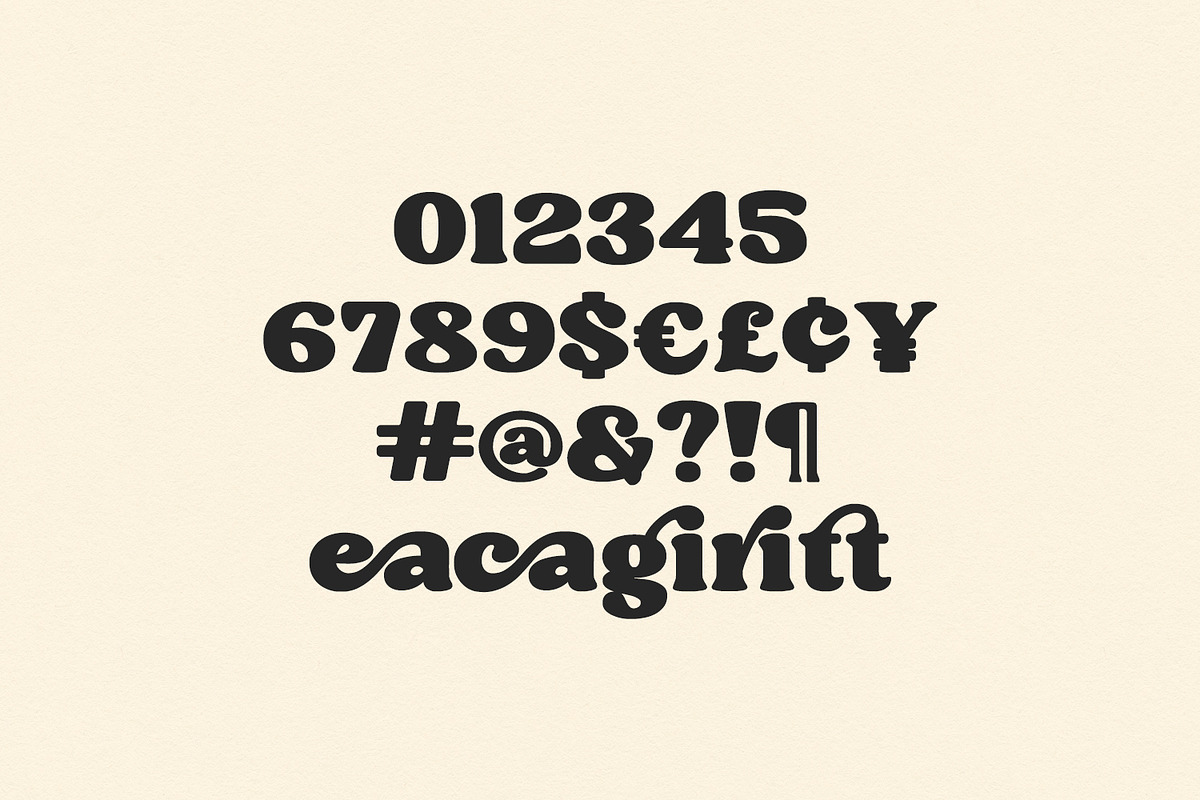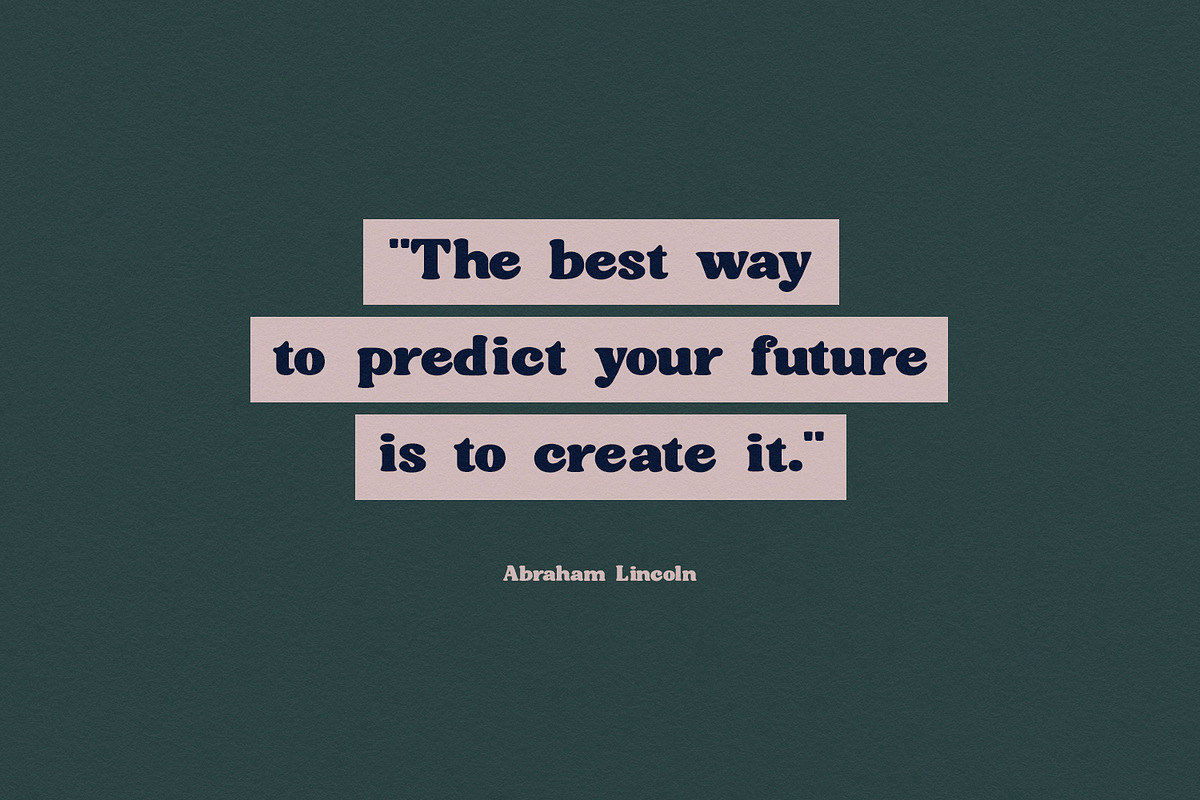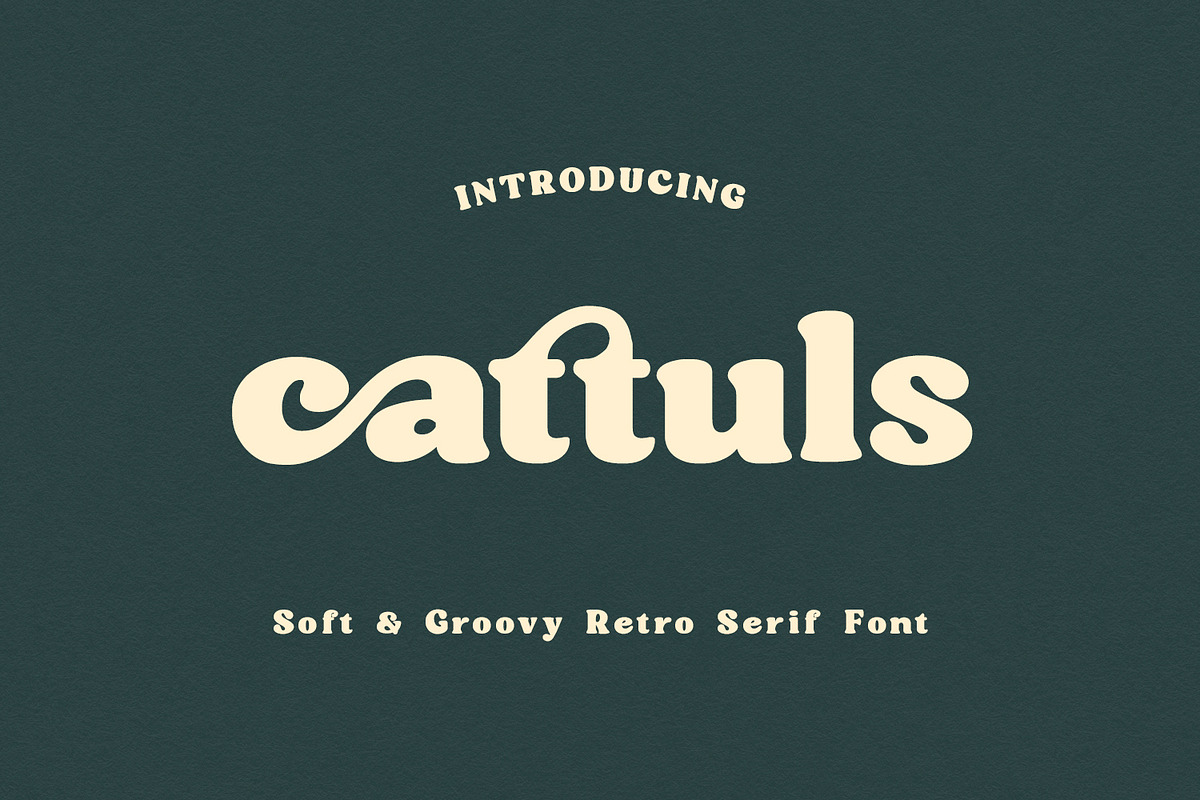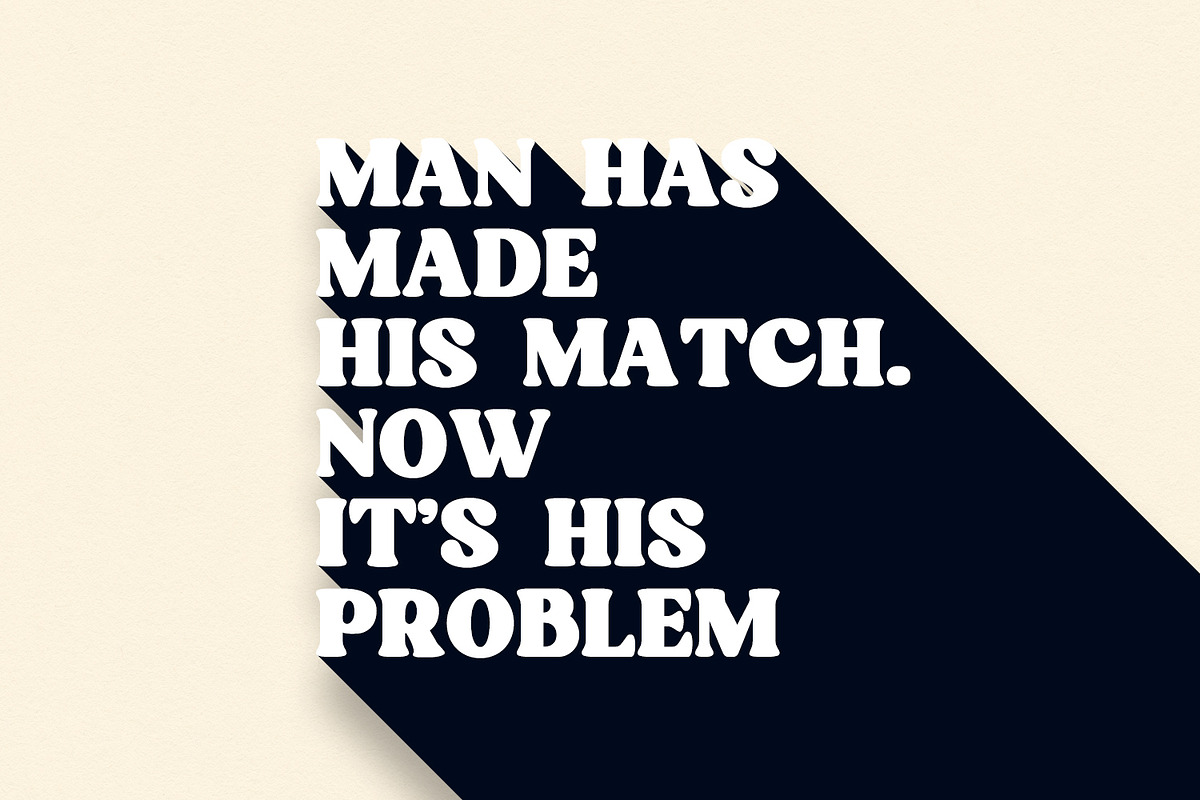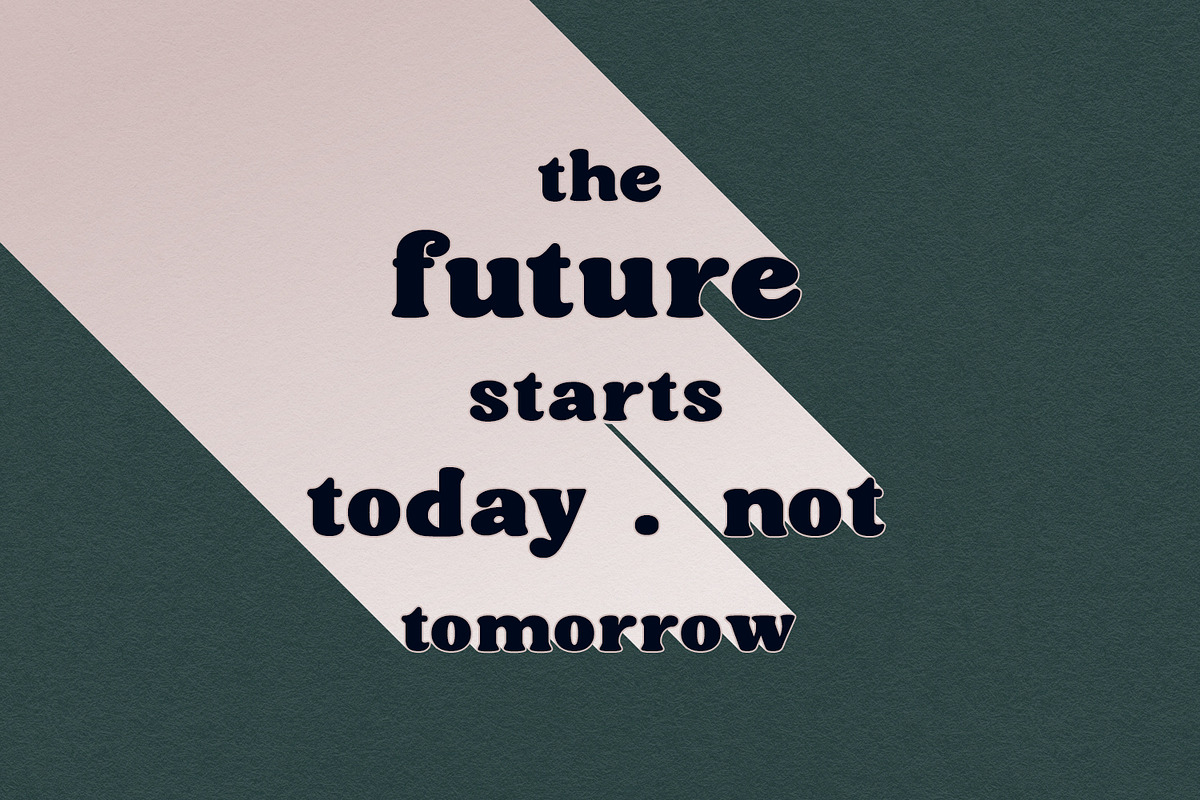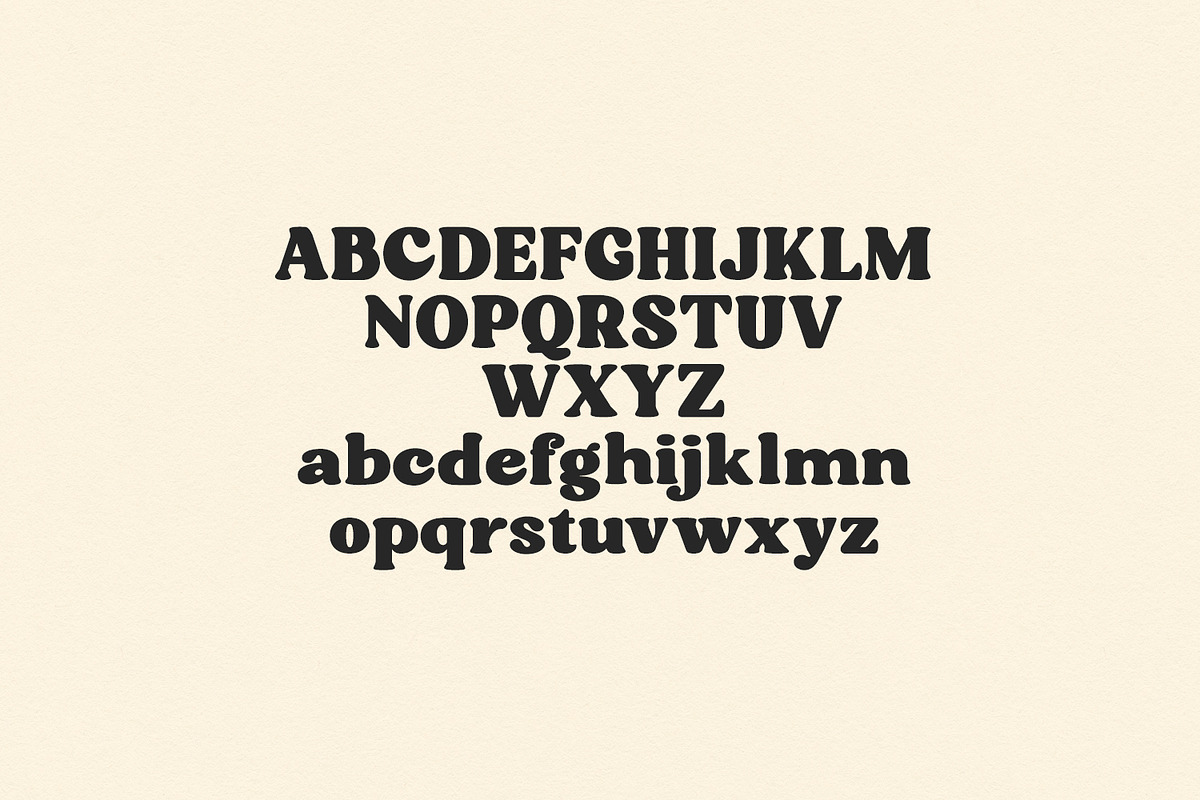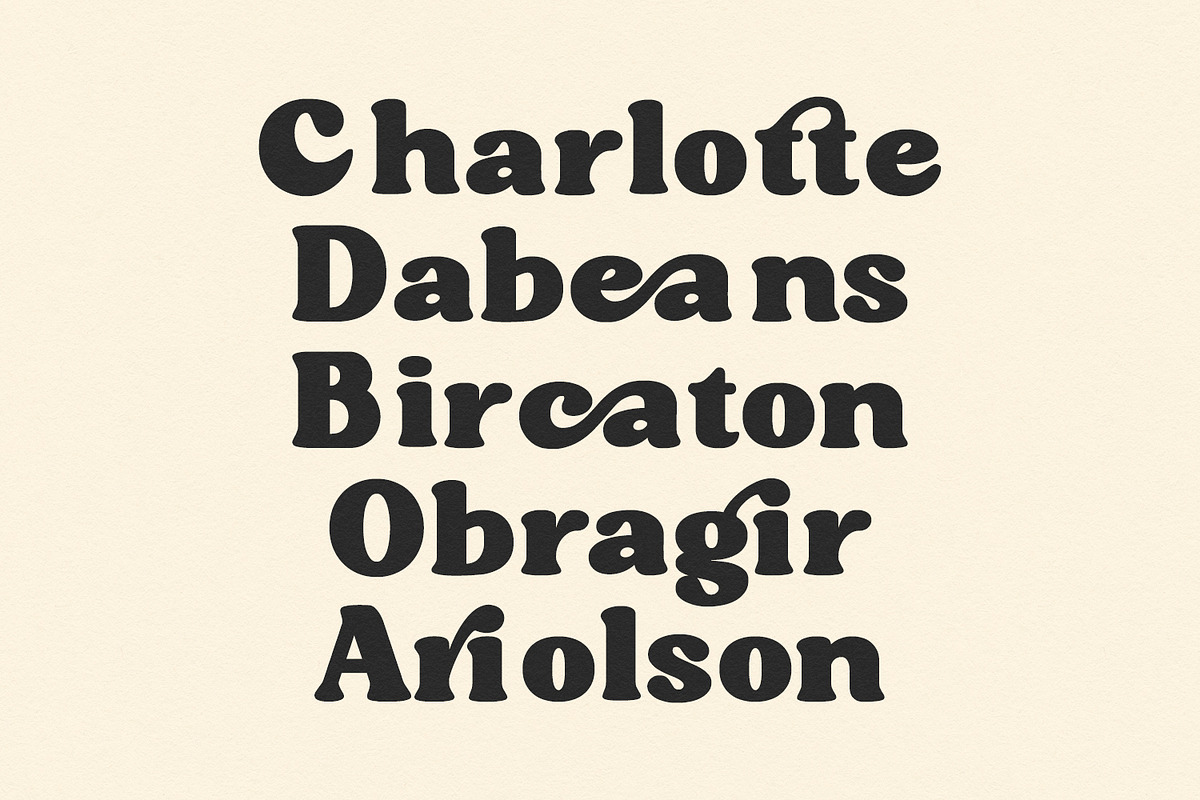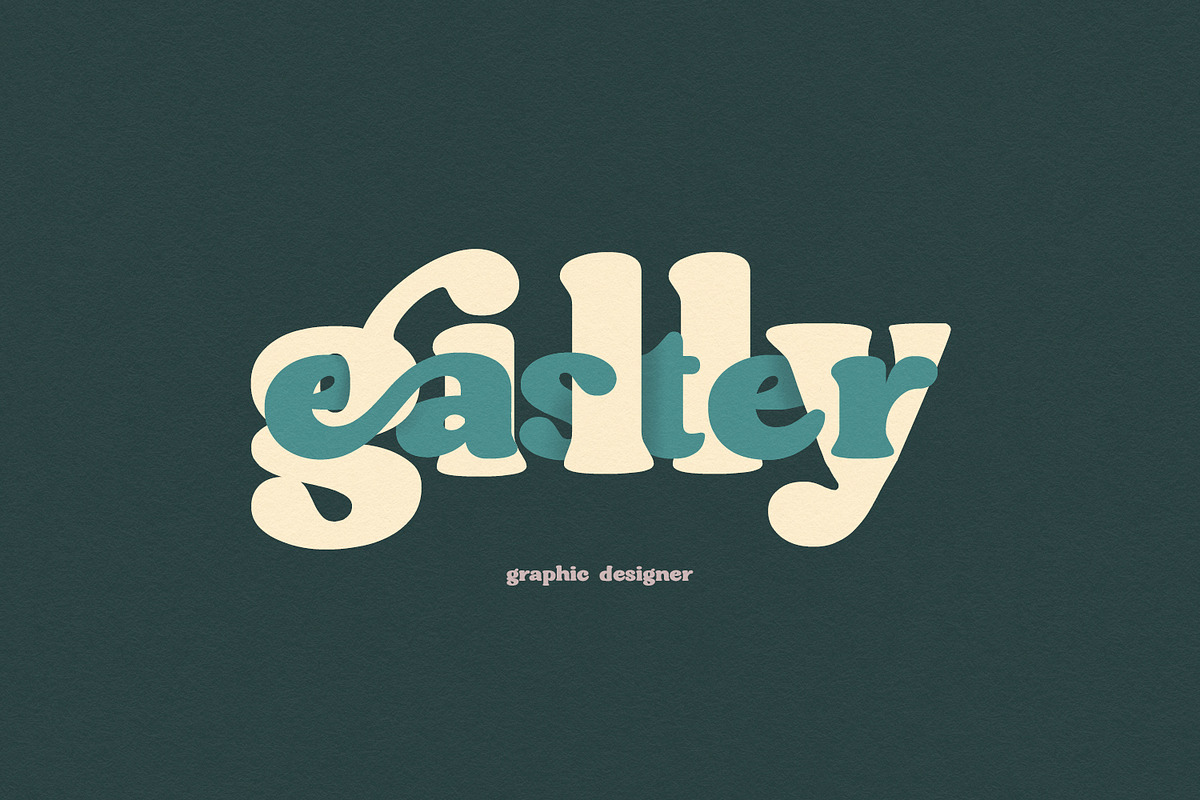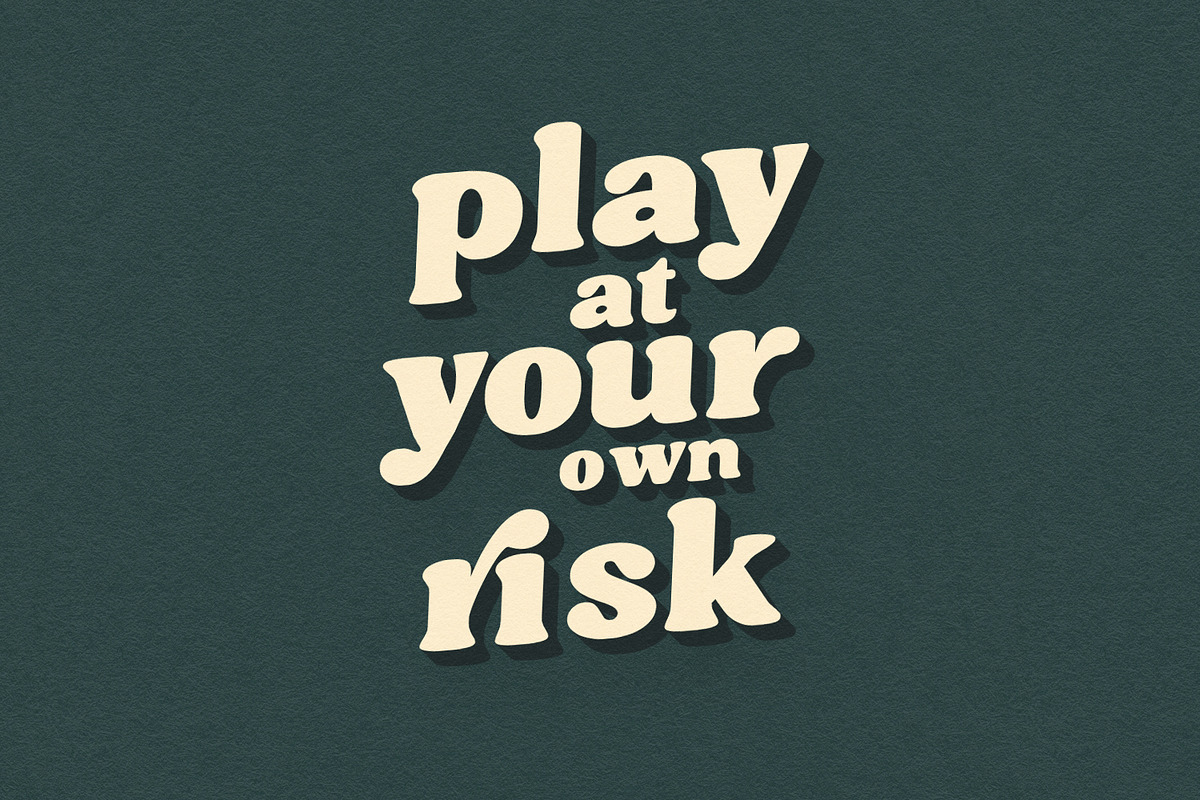
Cattuls Soft Groovy Retro Serif Font
Step back in time with Cattuls, a distinctly charming and incredibly versatile soft-serif font. Infused with a retro aesthetic and a delightful touch of 70s groove, Cattuls features a chunky, yet clean design with smooth, rounded serifs that exude warmth and playfulness.
The typeface stands out with its bold presence and includes captivating alternate characters and swashes, allowing you to create stunning, bespoke typography with an artistic flair. Its unique, melted-candy curves make it perfect for adding personality and a nostalgic vibe to any project.
- Logotypes and Branding that need a memorable retro-modern look.
- Editorial and Magazine Design for titles and display text.
- Posters and Flyers for events, music, and fashion.
- Product Packaging that aims for a hip, vintage, or artisanal feel.
- Social Media Graphics and Inspirational Quotes.
- Ligature Style